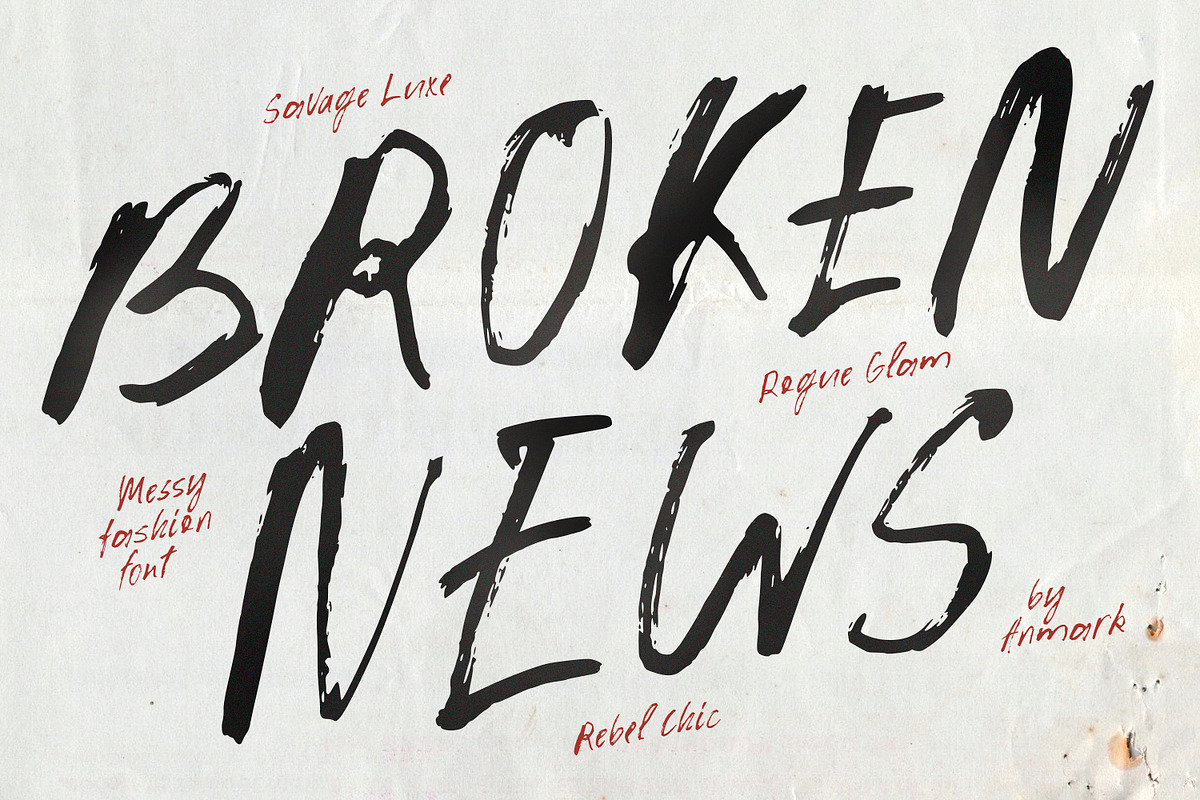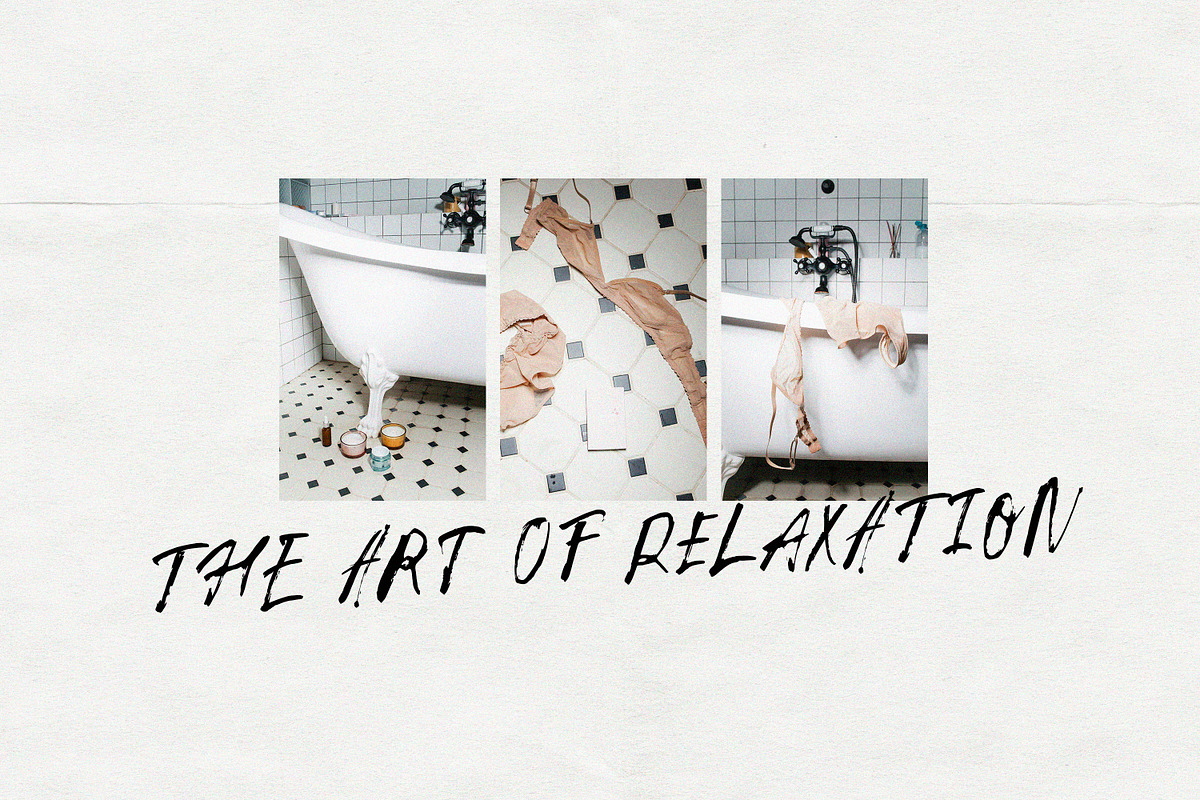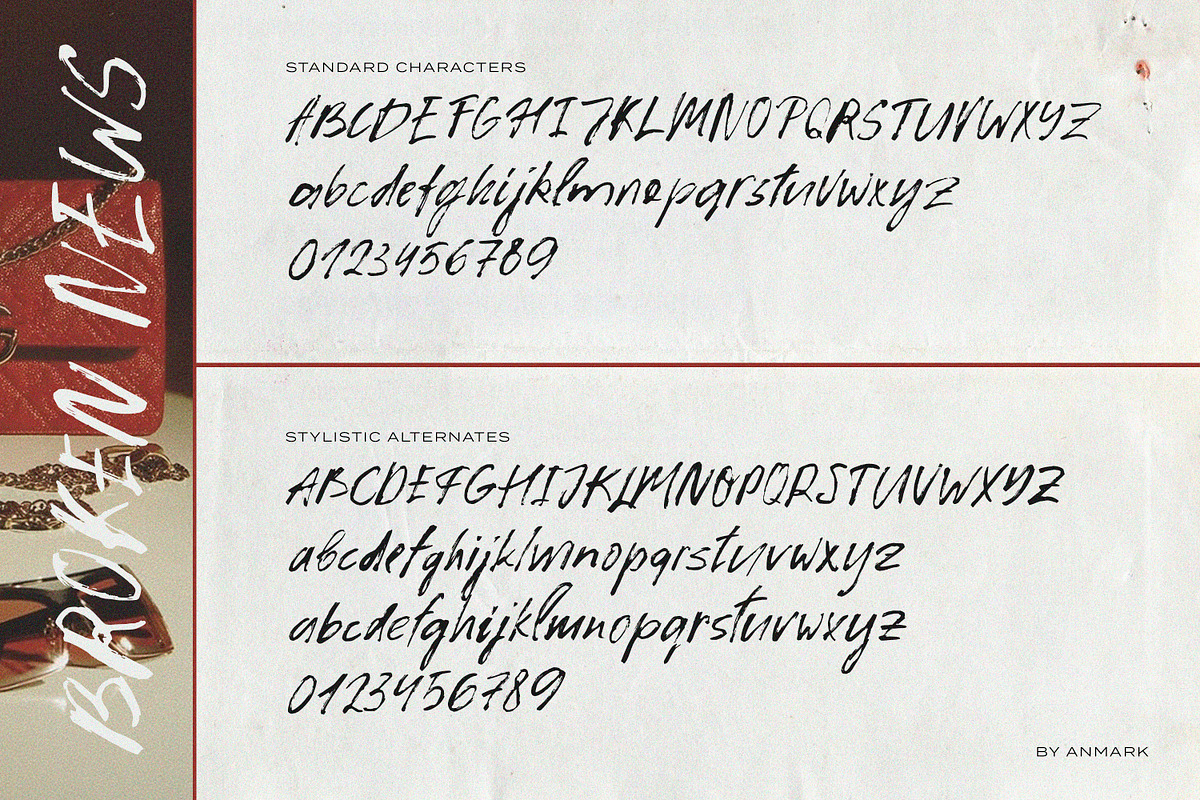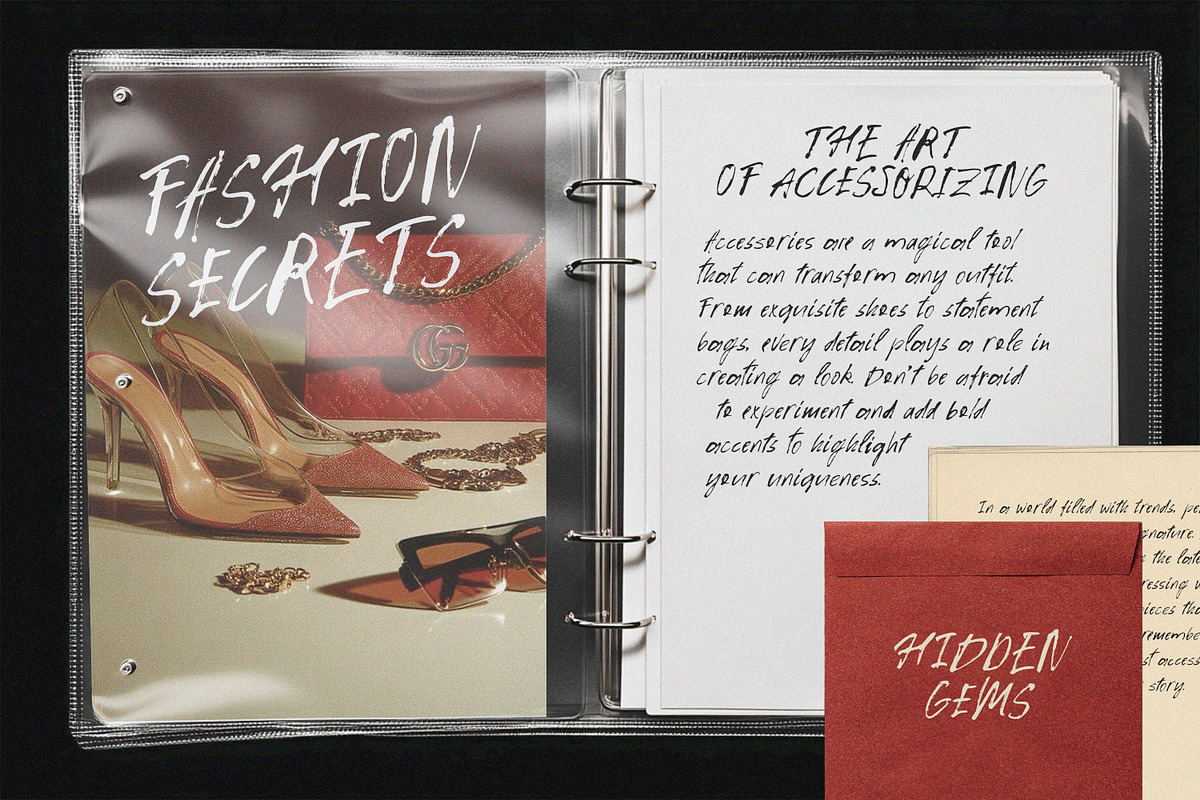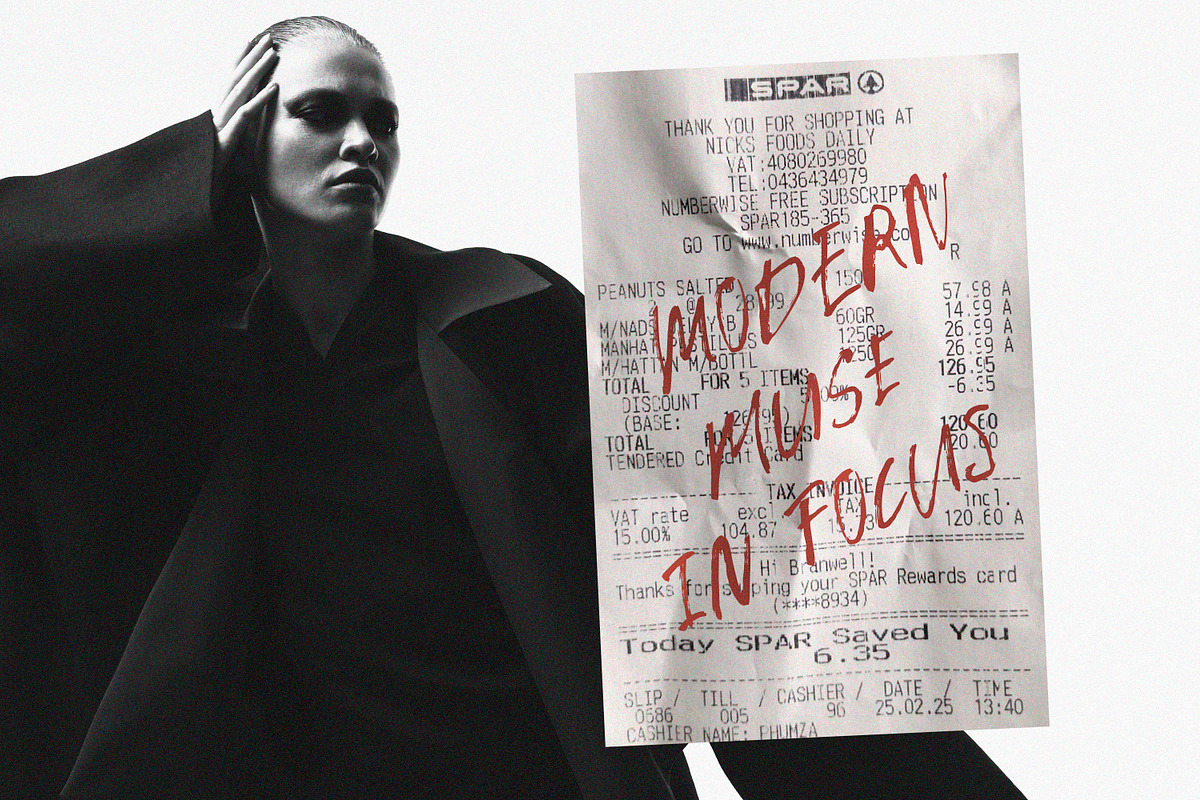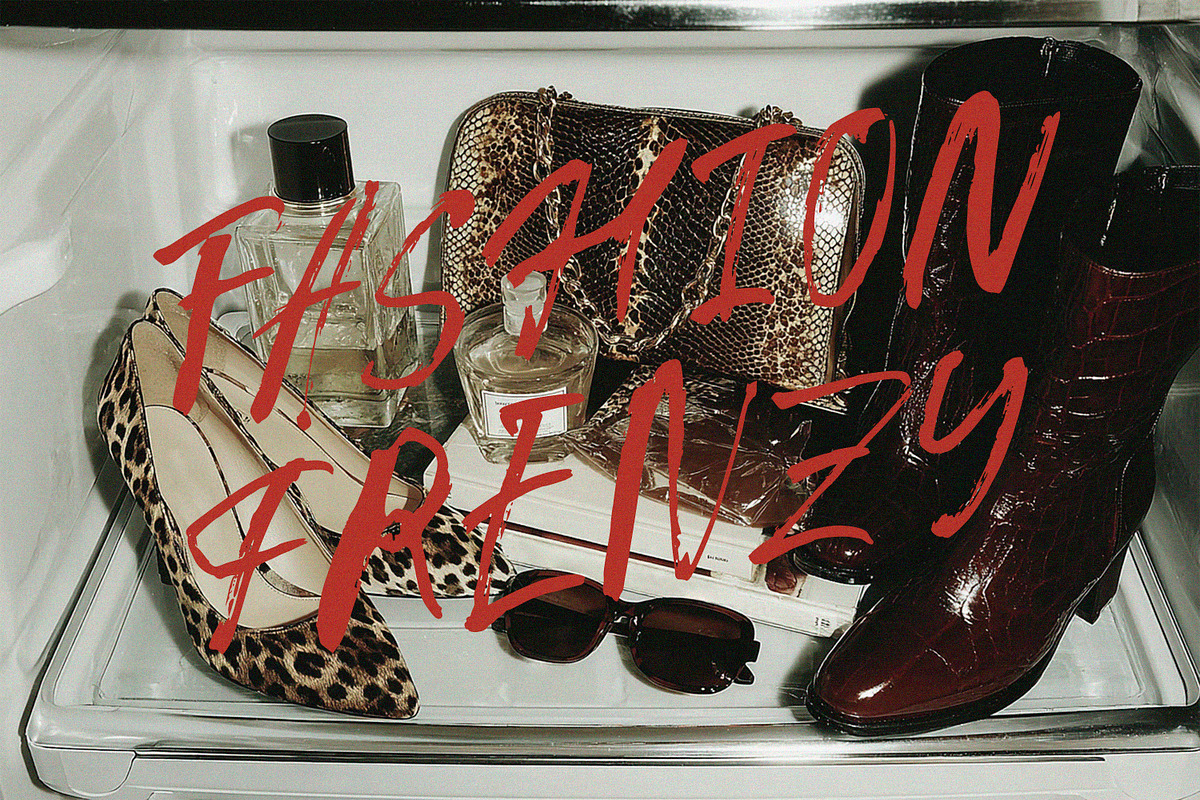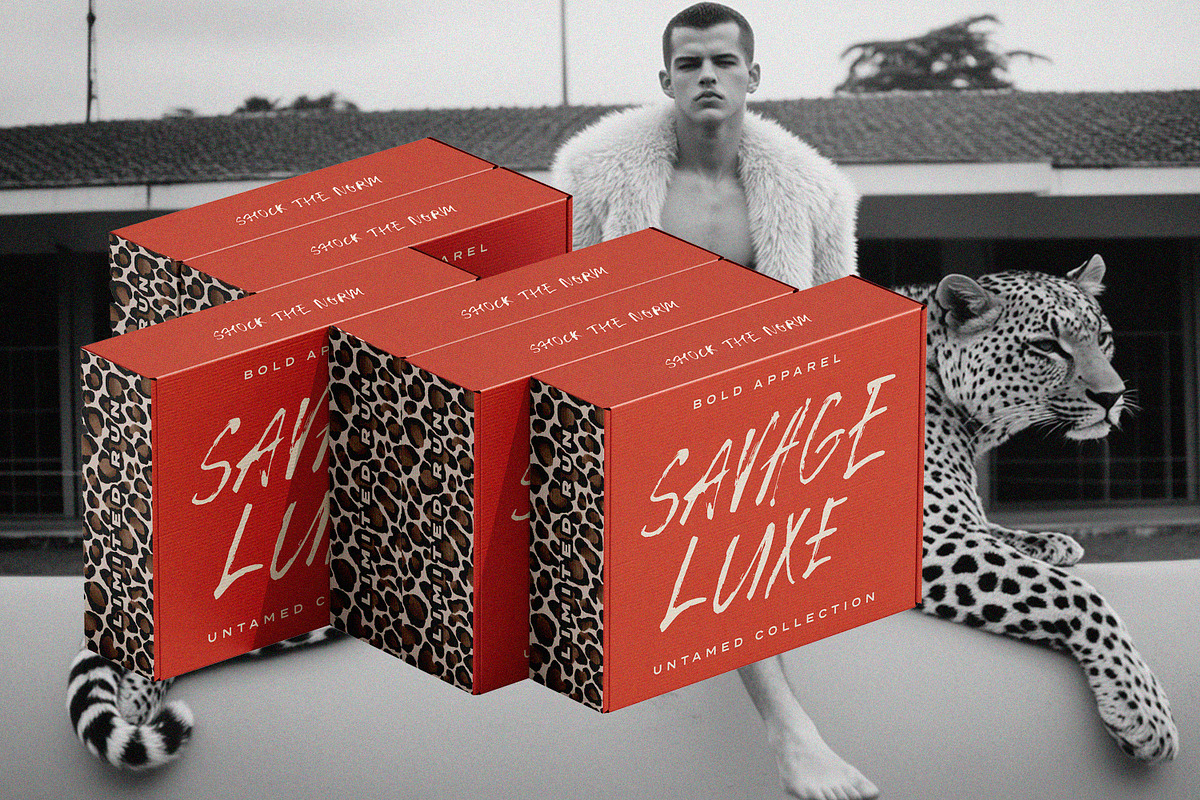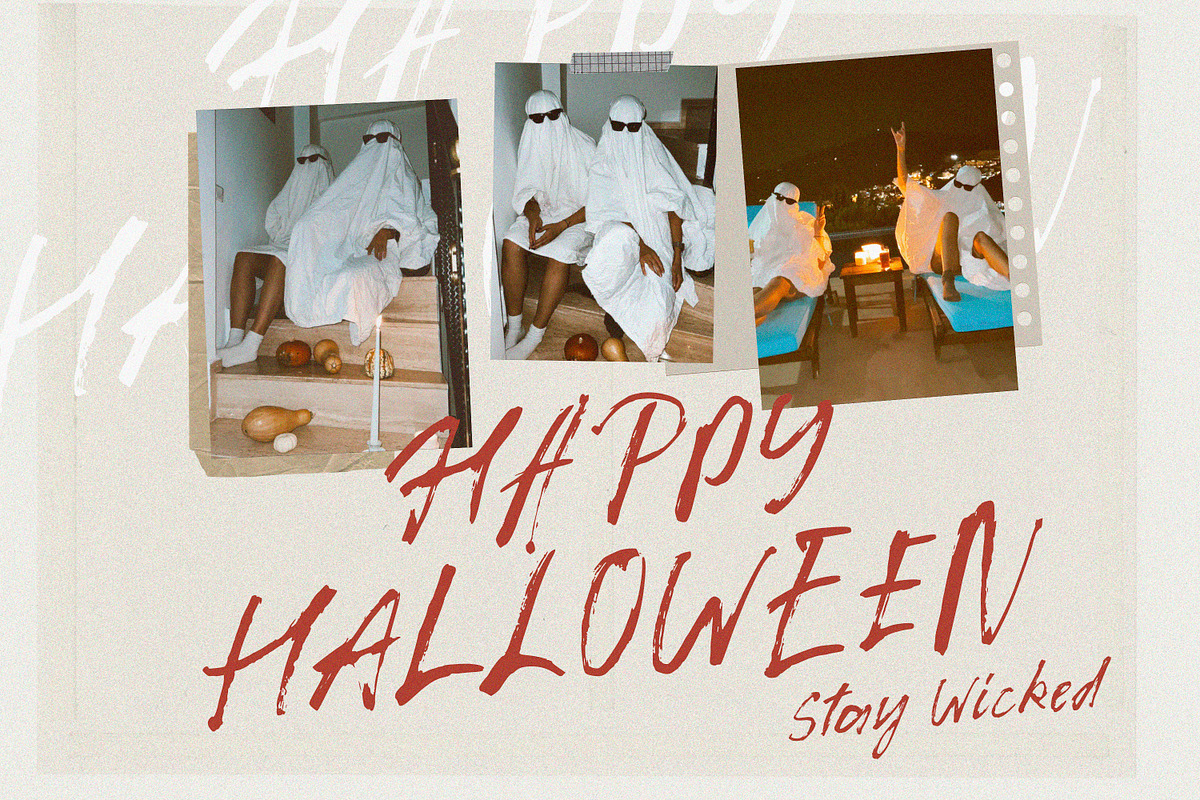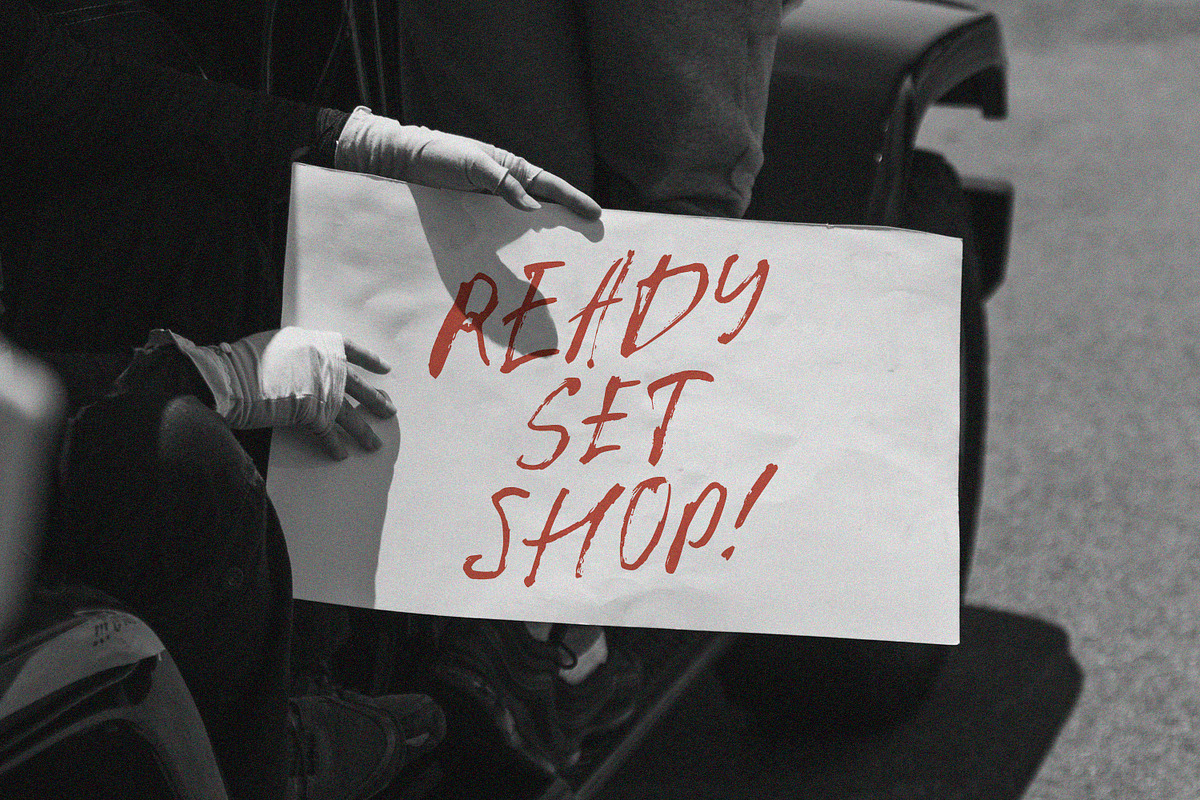
Broken News Messy Handmade Vibe Font
Broken News is a fashion-forward, savage luxe Messy Handwritten Font with a dark, edgy, and chaotic Halloween vibe.
Perfect for bold statements, editorial headlines, posters, and any design that needs attitude and style.
- Alternative Uppercase & Numbers set
- Two Lowercase sets for versatile styling
- Messy, grunge, and distressed textures
Ideal for: fashion, editorial, and statement designs, posters and flyers, magazine covers and editorial headlines, social media graphics and Instagram posts, branding, logos, and packaging, Halloween, gothic, or horror-themed designs, street style, punk, and alternative fashion projects, book covers, zines, and creative publications, event invitations and party graphics, apparel prints and merchandise, statement typography and expressive design.
Broken News brings a bold, chaotic energy with a savage luxe twist.